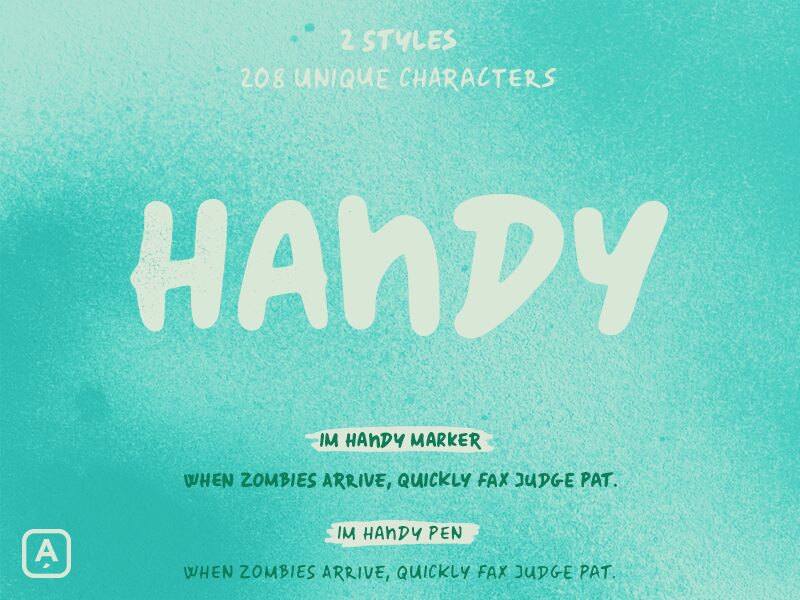
IM Handy DEMO Marker
IM Handy is a handwritten font marker & pen font. 2 styles with over 200 unique characters in them so you can use stylistic alternates for all letters to give your design a more handwritten look.